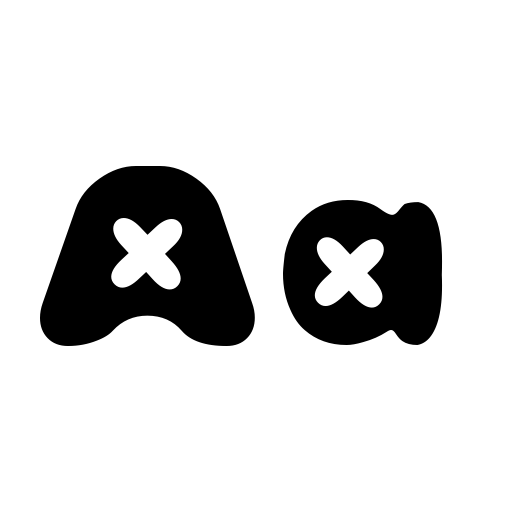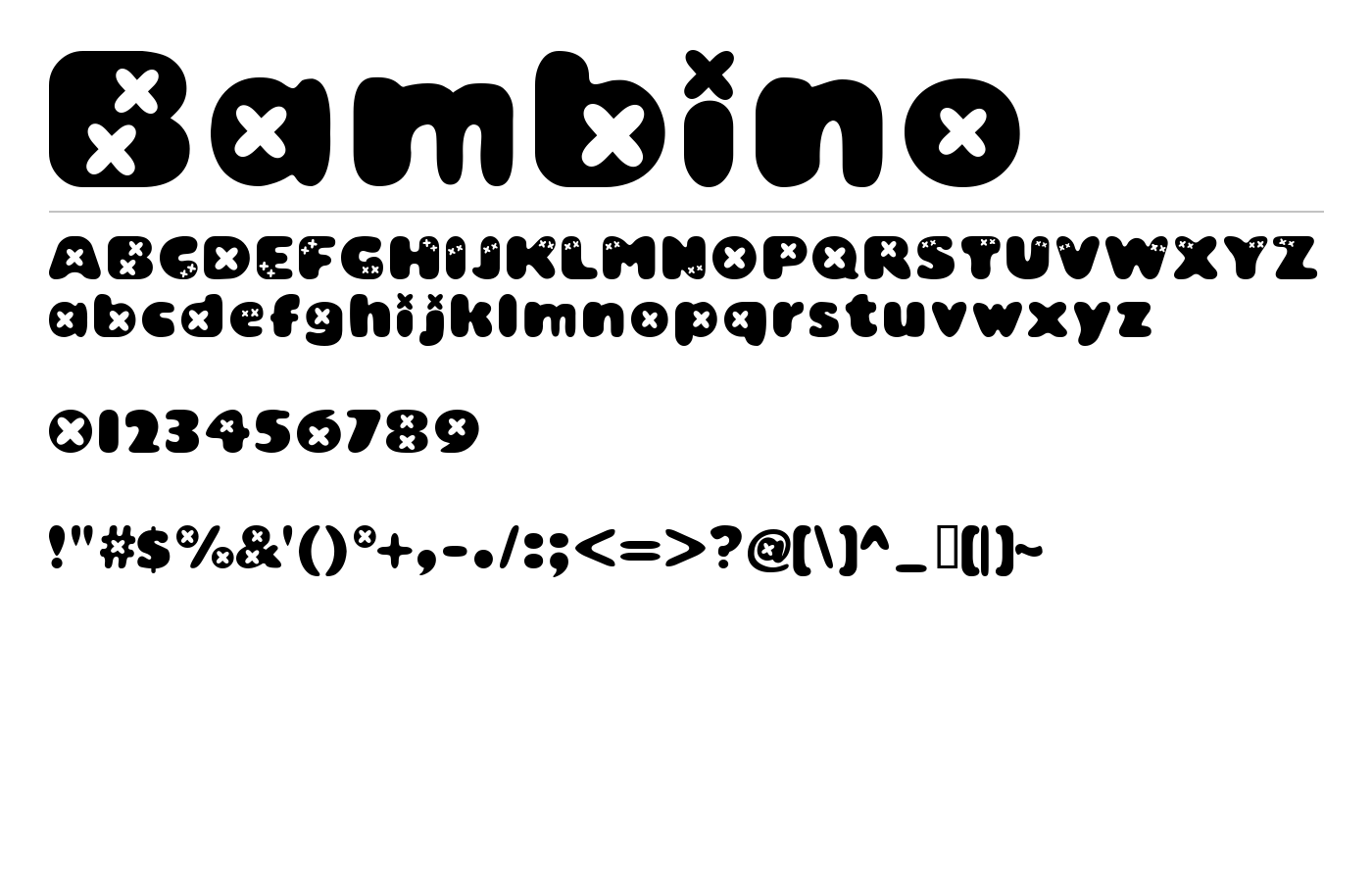
Bambino Font is a playful and bold sans serif typeface characterized by its thick, rounded letterforms and distinctive "X" motifs within many characters, adding a whimsical and childlike charm. Its heavy weight and compact structure make it ideal for eye-catching headlines, logos, and designs aimed at a fun, youthful audience. This font works especially well in contexts like children’s products, playful branding, and creative posters where a friendly and energetic vibe is desired.
Bambino Font